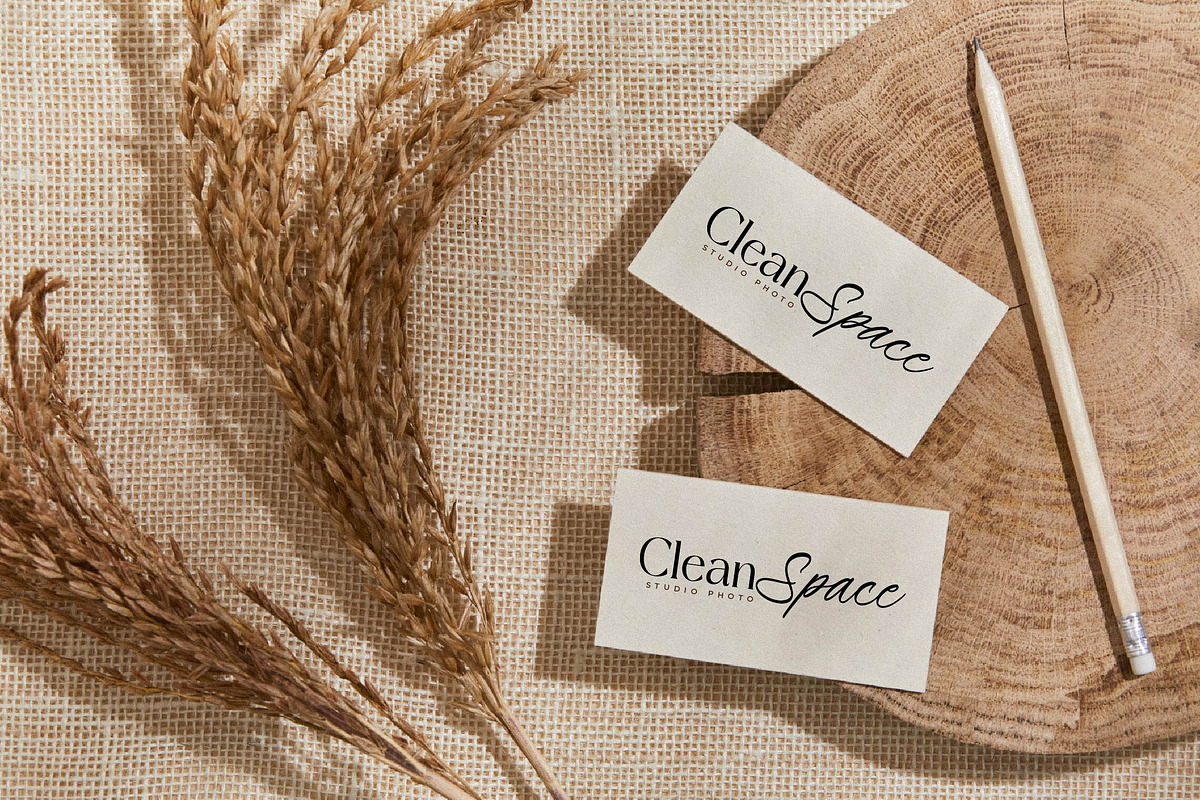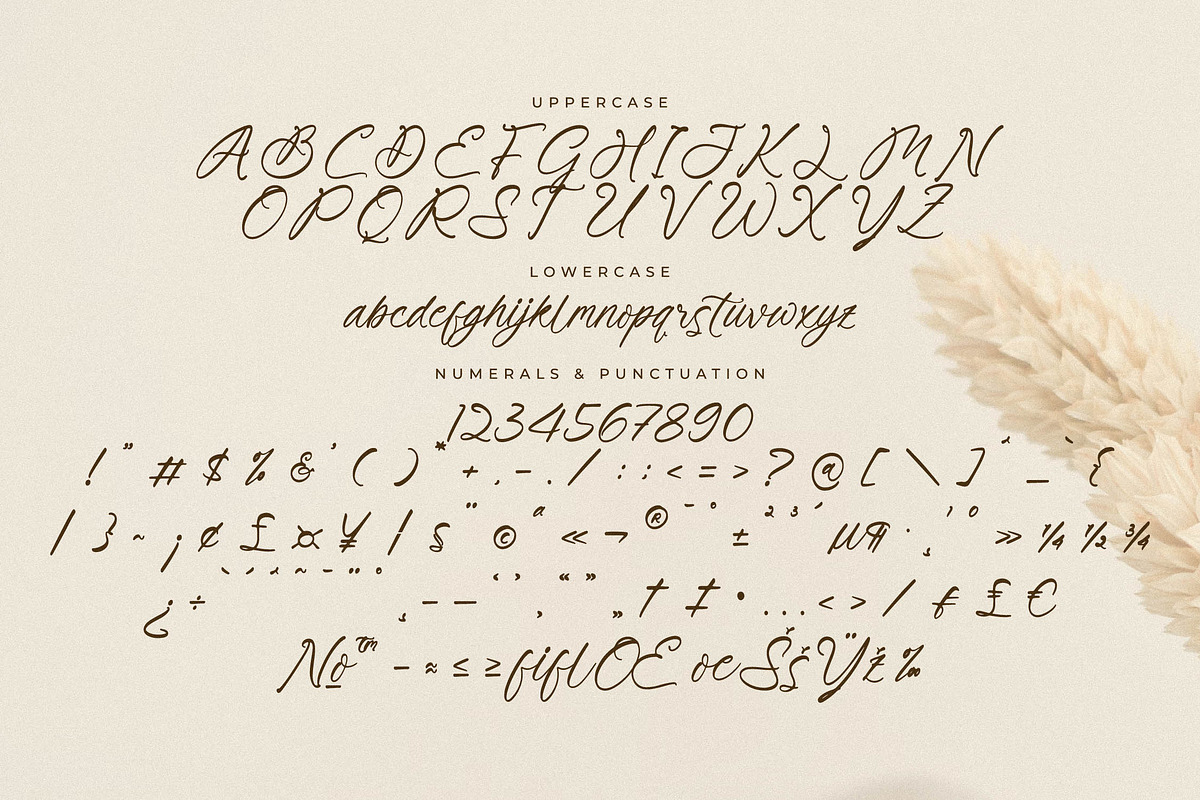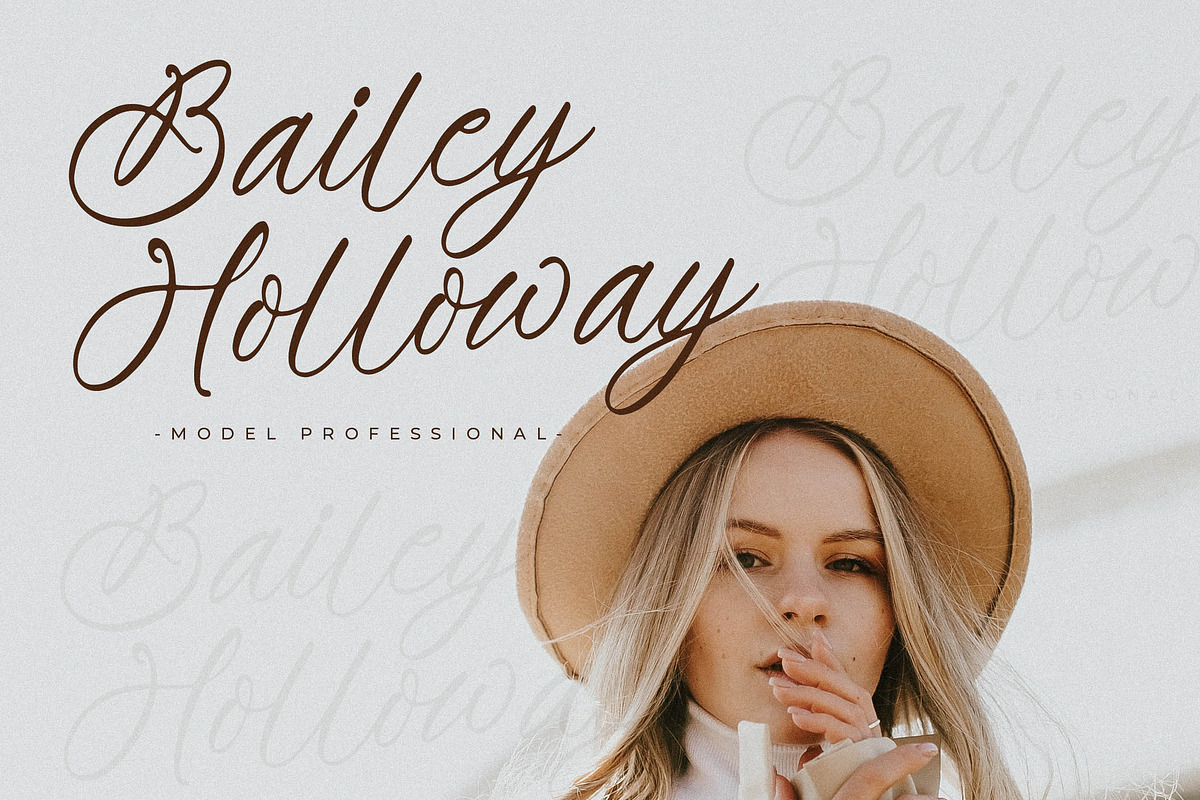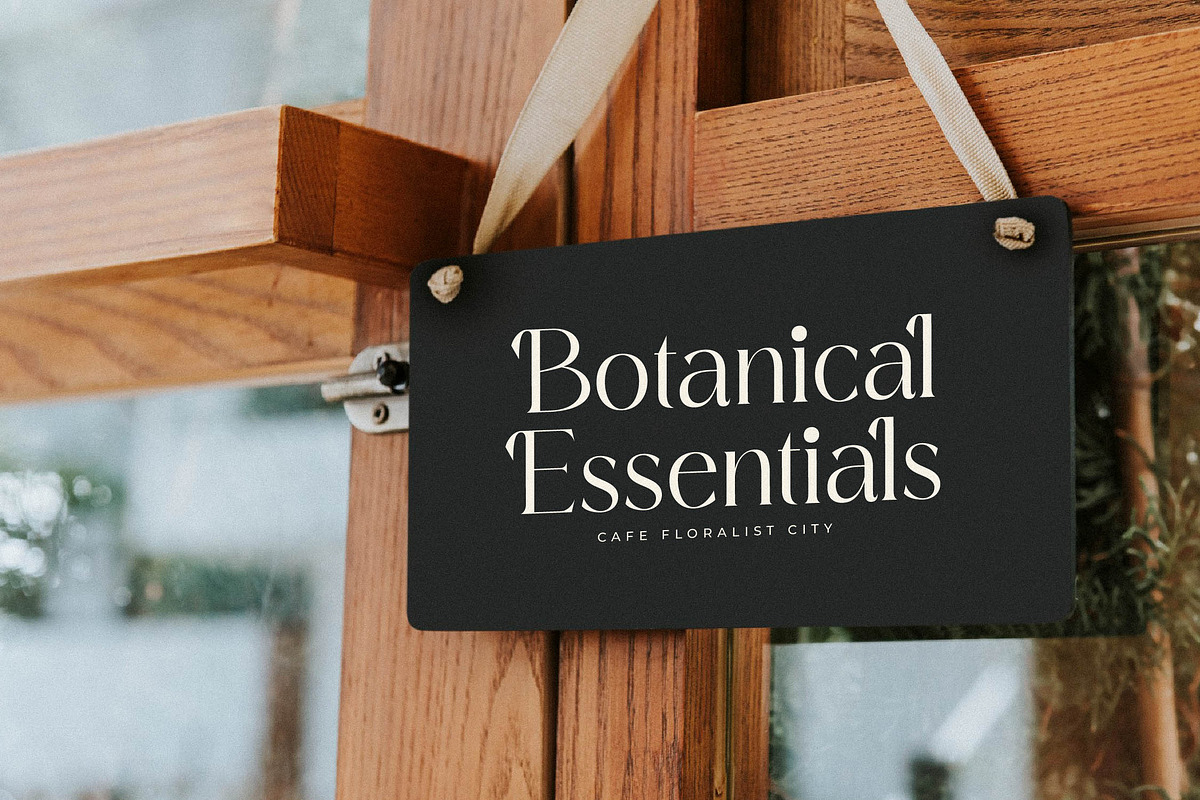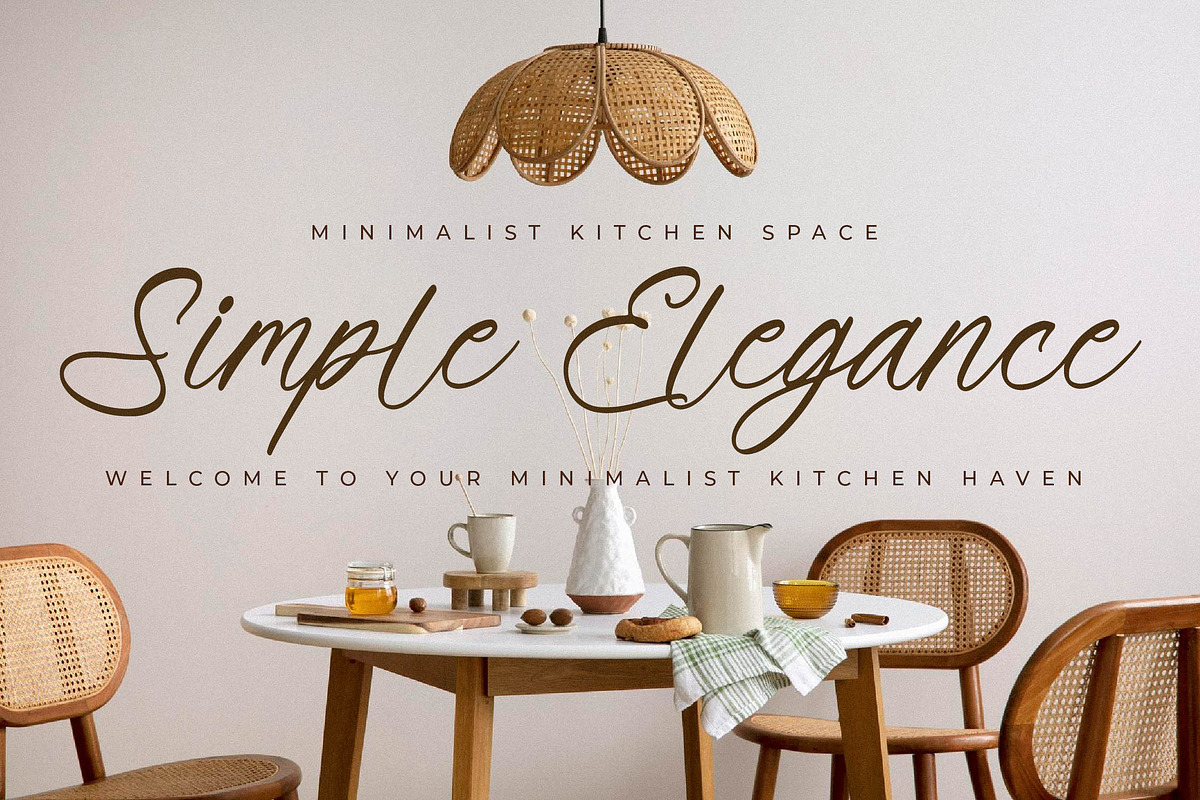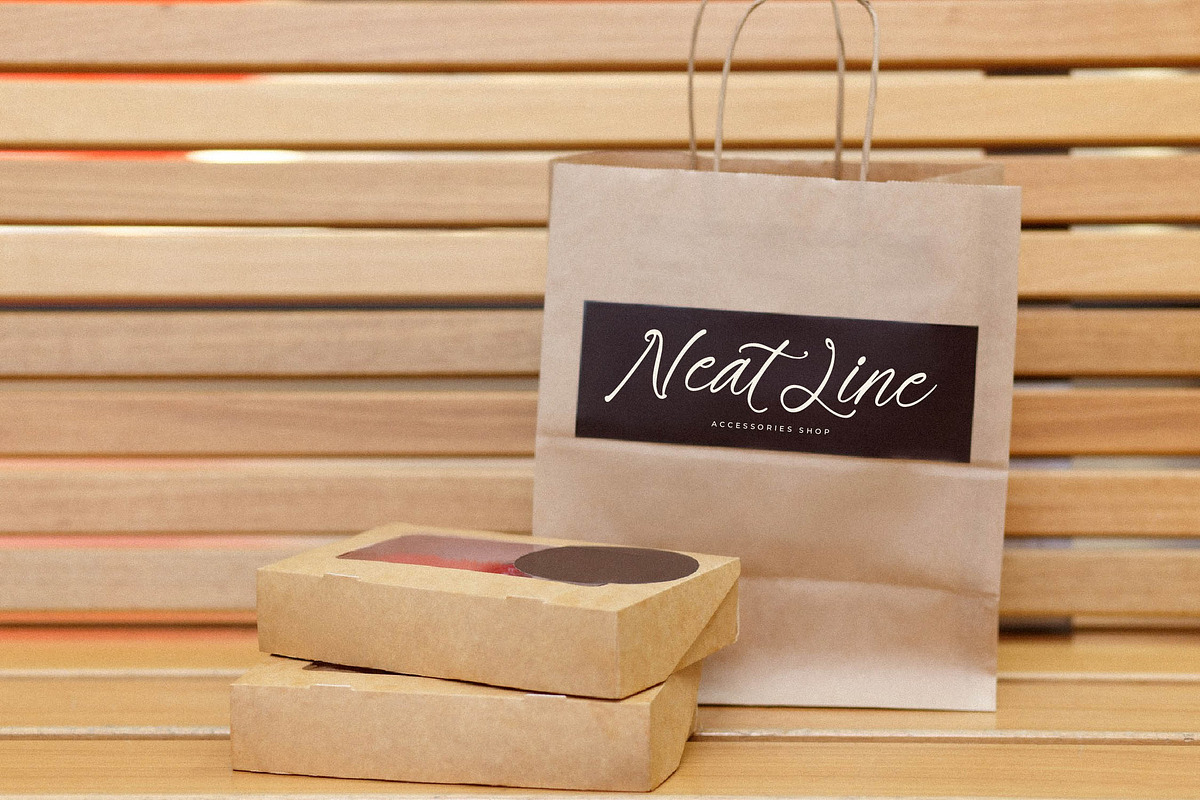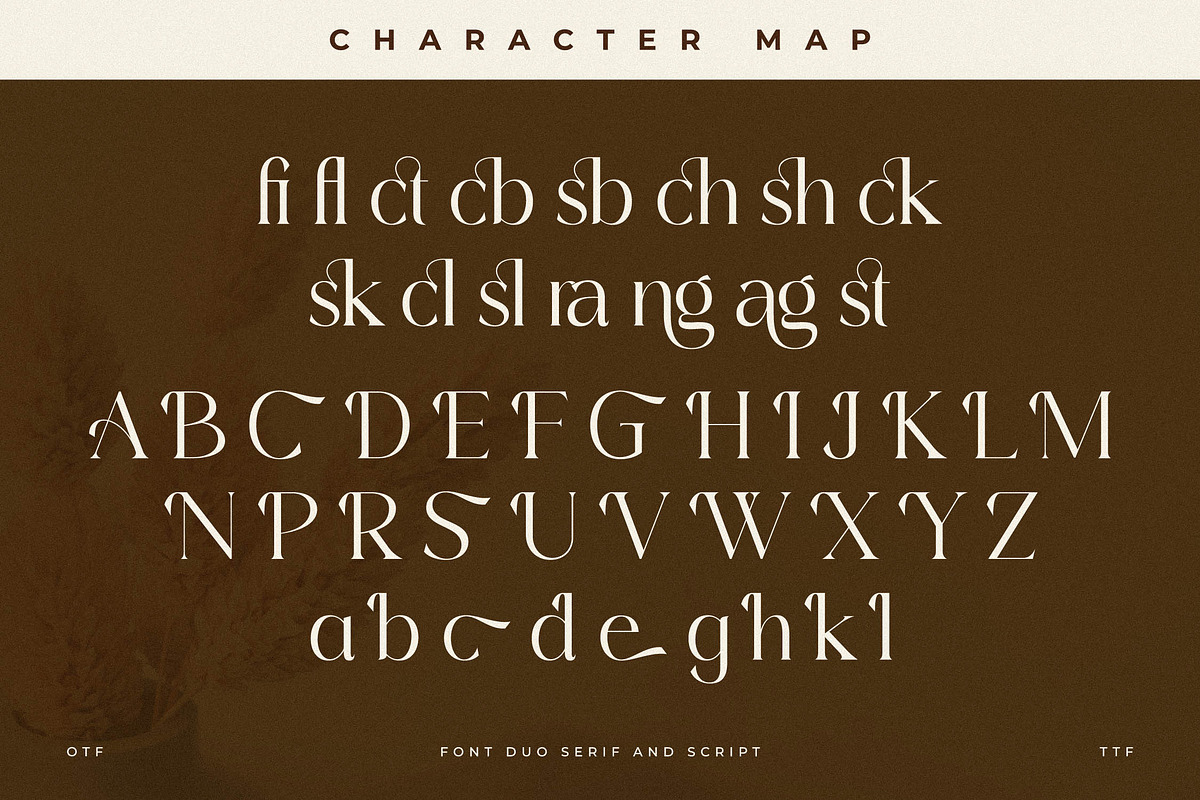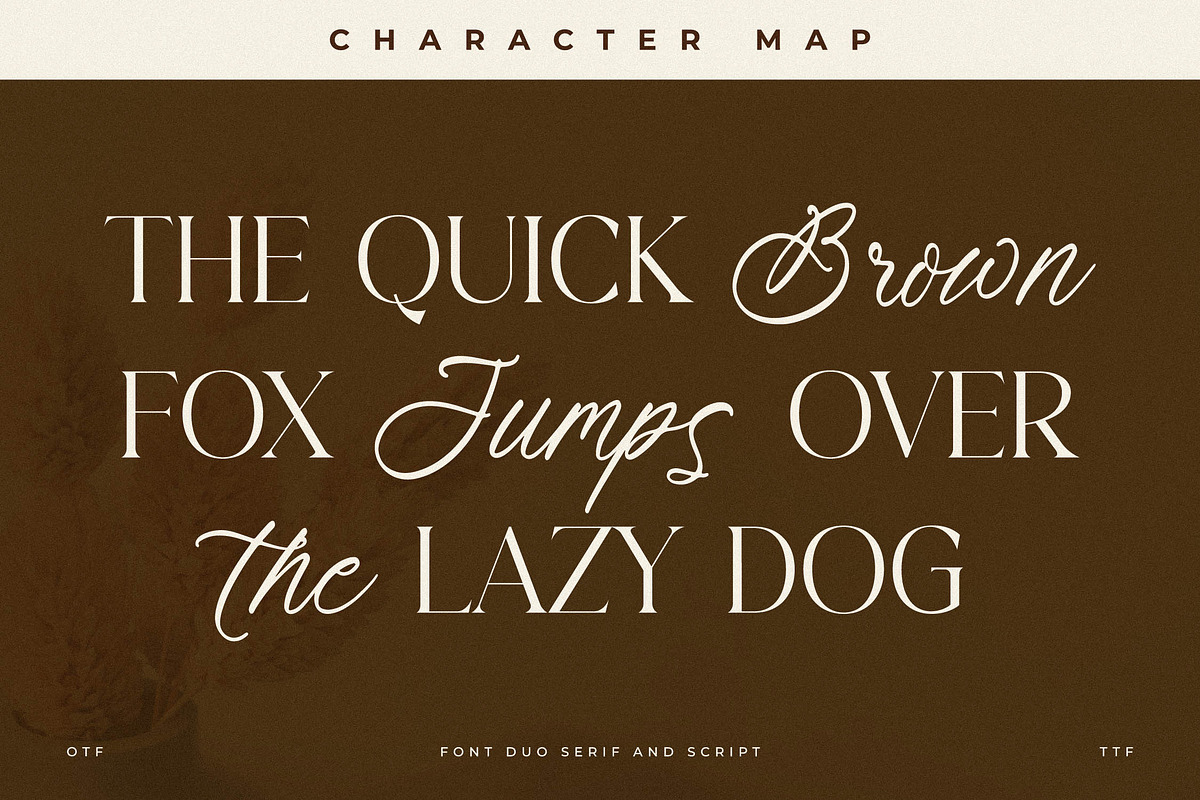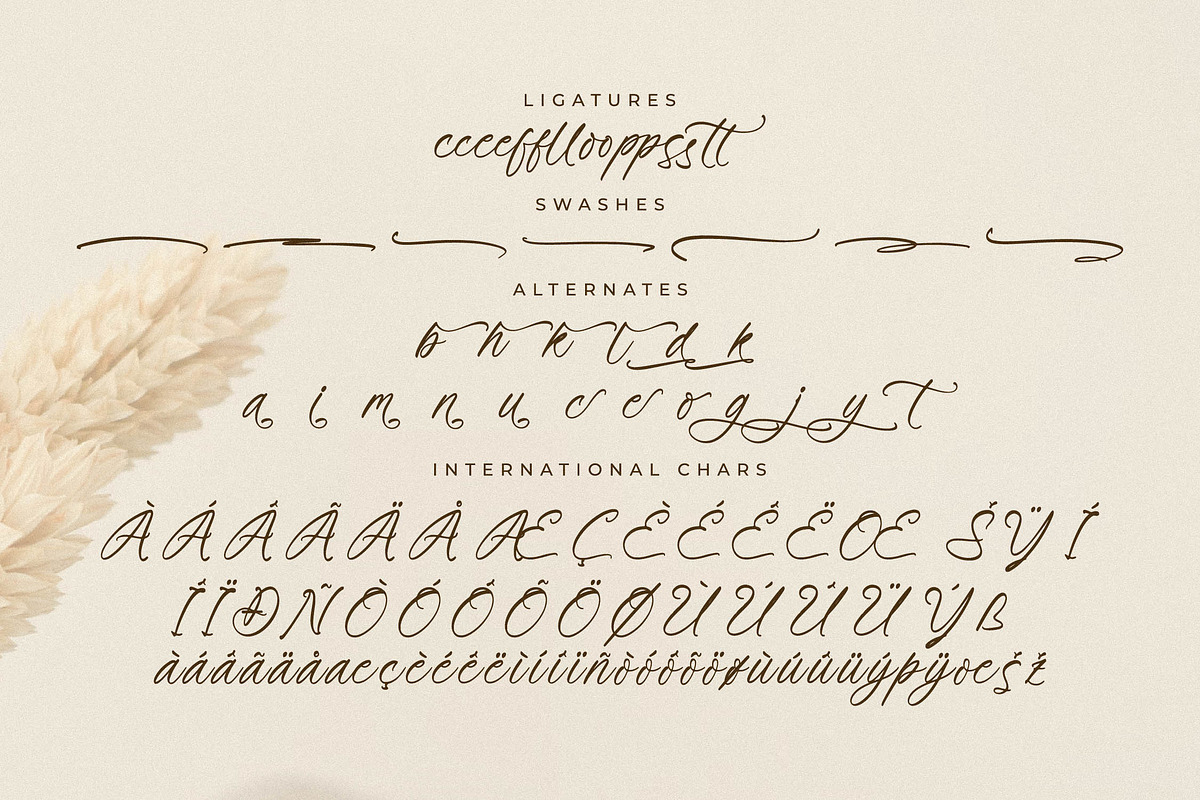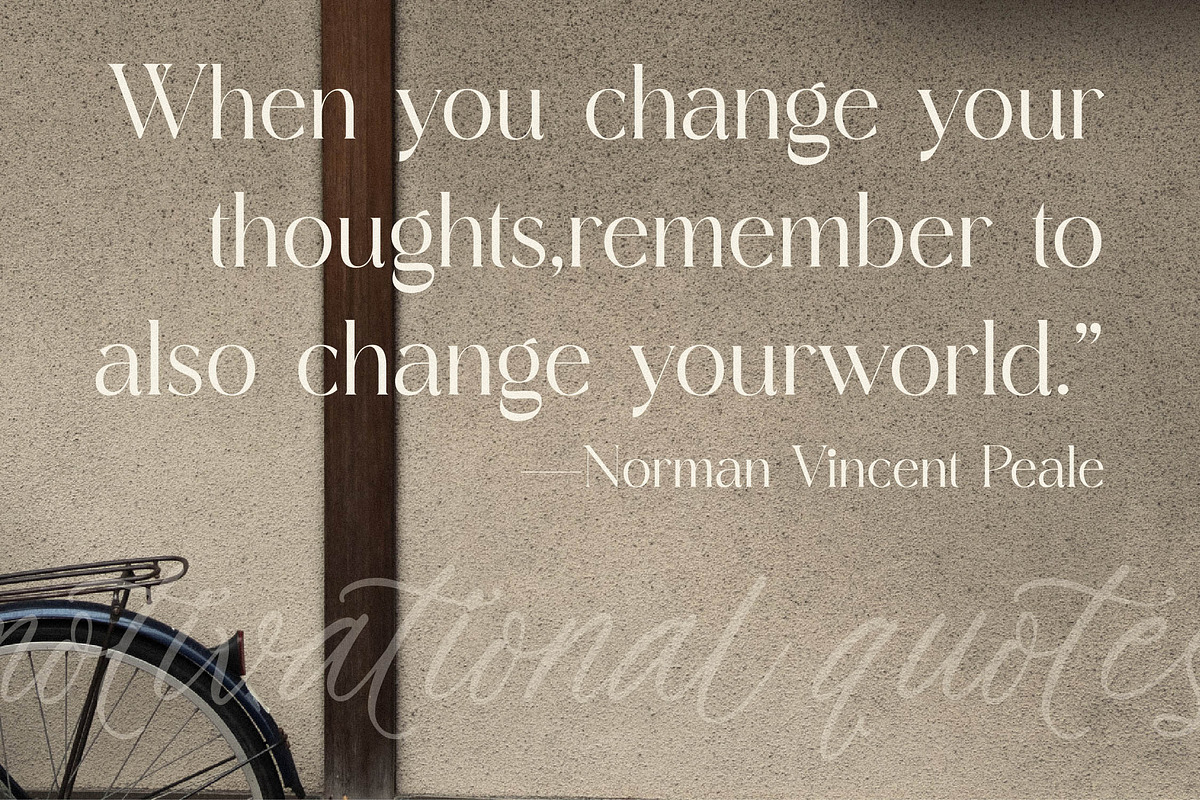
Primrose Essentials Font Duo
Proudly present Primrose Essentials Font Duo , created by Storytype, A serif and script typeface that has own unique style & modern look. This typeface is perfect for an elegant & luxury logo, book or movie title design, fashion brand, magazine, clothes, lettering, quotes, and so much more.